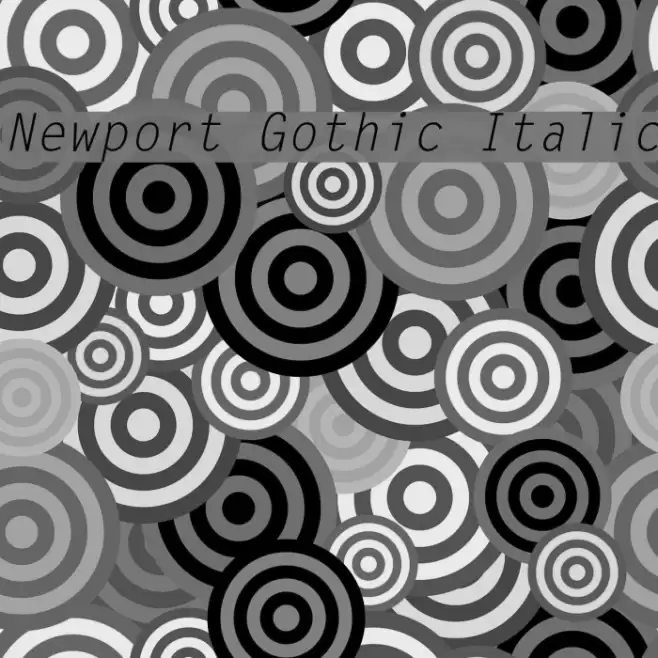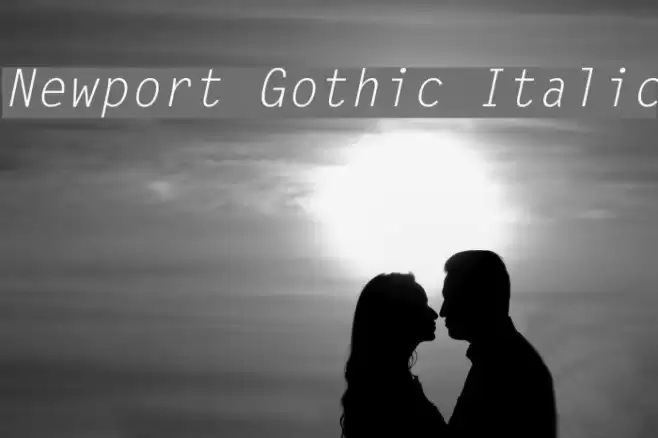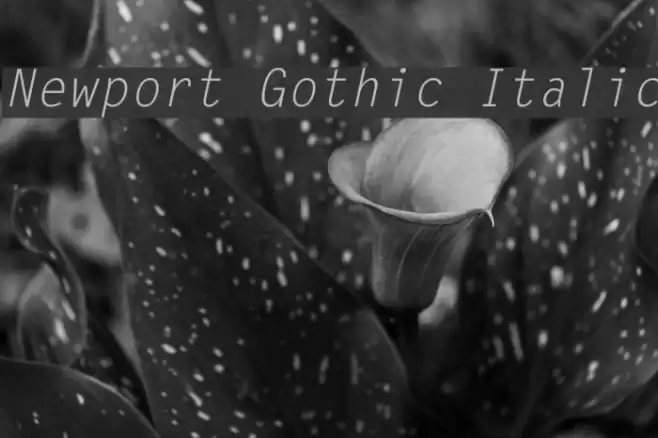
Newport Gothic Italic Font
Newport Gothic Italic Description
This font features a sleek and modern design with a slight slant, giving it an italicized appearance. The characters are clean and streamlined, with a consistent stroke width that maintains a uniform look across both uppercase and lowercase letters. The numerals and special characters are designed to complement the alphabet, ensuring readability and aesthetic appeal. Its minimalist style makes it versatile for various design applications, while the italic slant adds a touch of elegance and dynamism.
A sleek, modern italic font with consistent stroke width and elegant slant from Uncategorized fonts.
- Proposed Projects: Ideal for branding, editorial design, and modern web interfaces where a touch of elegance is desired.